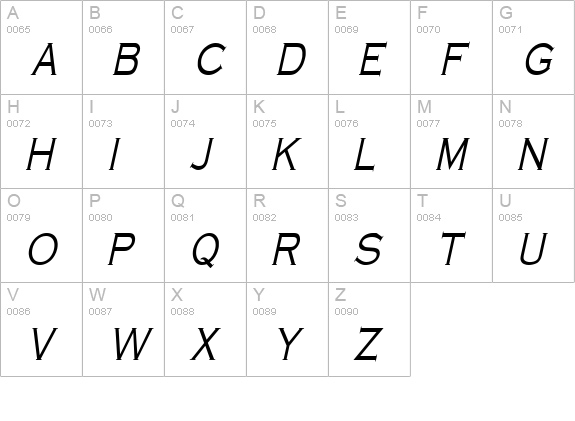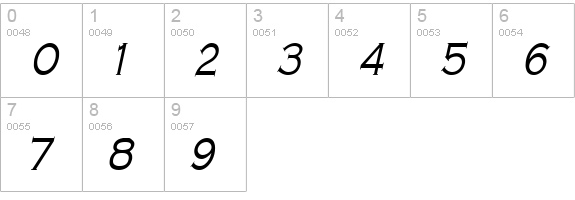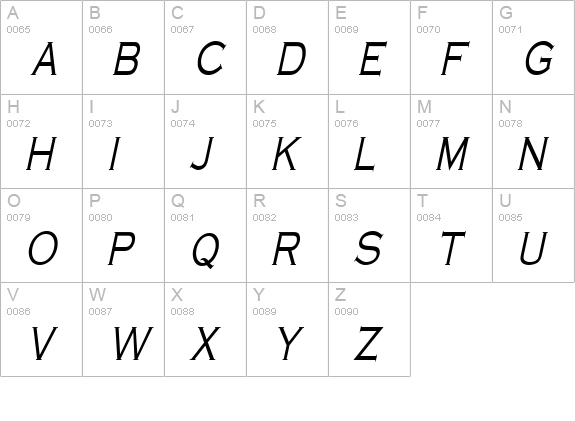
Cobalt Thin Italic Font Details
Cobalt Thin Italic is a delicate, low-contrast, italic variant in the Cobalt typeface family \xE2\x80\x94 well suited to fashion editorial, minimal branding, and high-contrast display.
Cobalt Thin Italic font is a sleek and modern typeface that exudes elegance and sophistication. With its slender letterforms and subtle slant, this font is perfect for creating a sense of style and refinement in any design project. The delicate curves and precise angles of Cobalt Thin Italic add a touch of sophistication to any text, making it ideal for use in branding, editorial design, and more. What makes Cobalt Thin Italic font even more appealing is that it is available for free download at FontsMarket.com. This means that you can easily access and use this stunning typeface in your projects without any cost. Whether you are working on a personal project or a professional assignment, Cobalt Thin Italic font offers a versatile and stylish option for your typography needs. Download it today and add a touch of elegance to your designs.